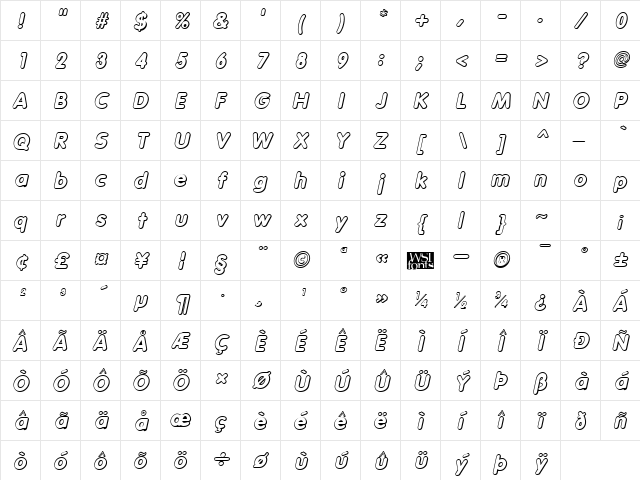
VagabondShadow Italic Free Font
VagabondShadow Italic
Design Context for VagabondShadow
VagabondShadow is built around its visual character rather than neutral utility - its distinctive forms are designed to make an impression at display sizes. The slanted form adds forward momentum and visual energy.